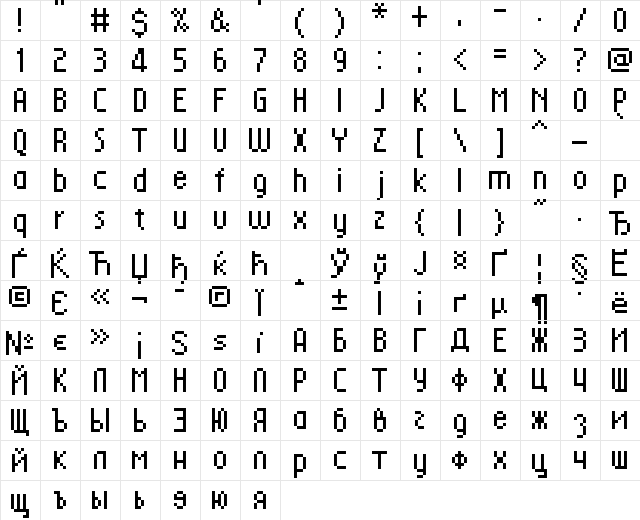
Bulgaria Glorious Cyr Regular
Design Context for Bulgaria Glorious Cyr Typeface
Bulgaria Glorious Cyr takes a measured approach to typography — its balanced proportions and neutral character make it a reliable workhorse for both digital and print work.